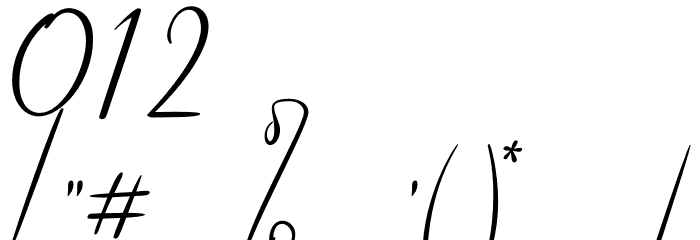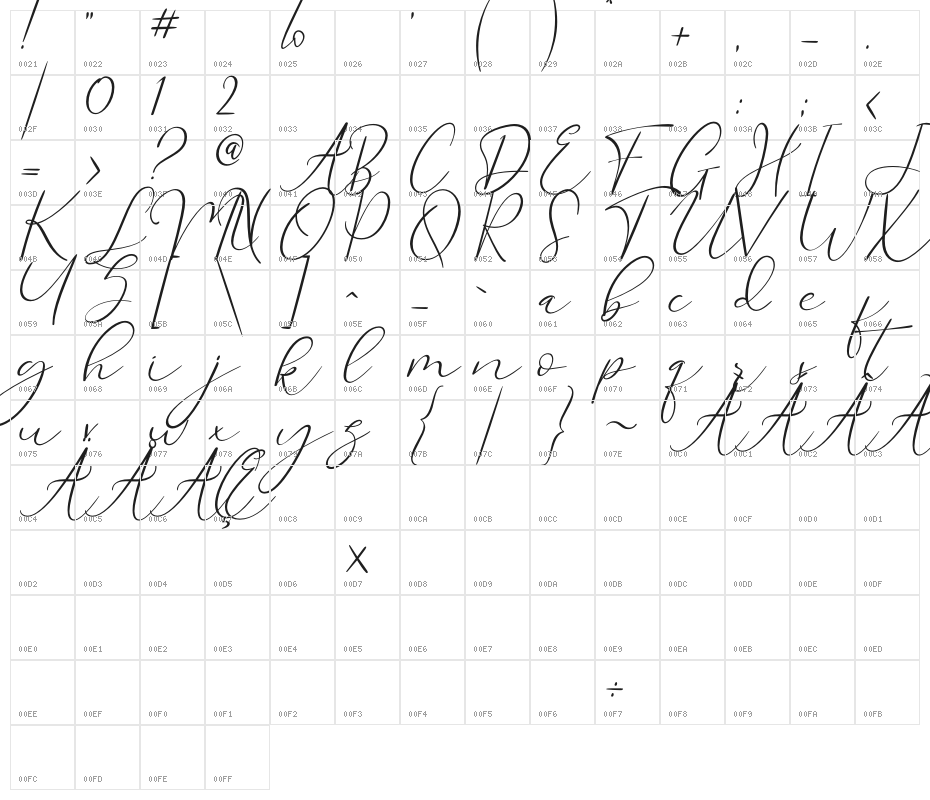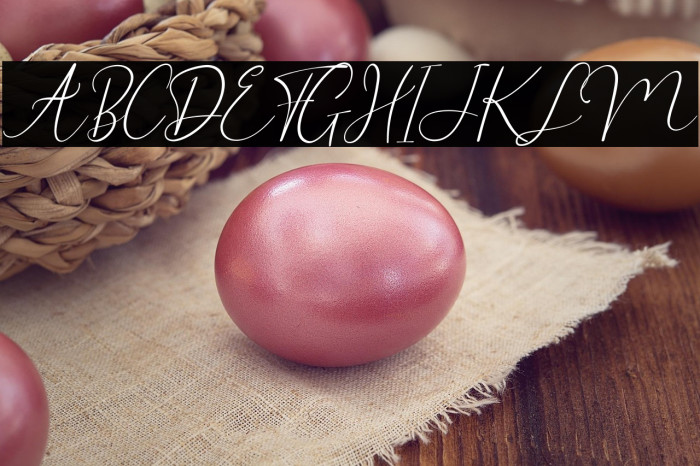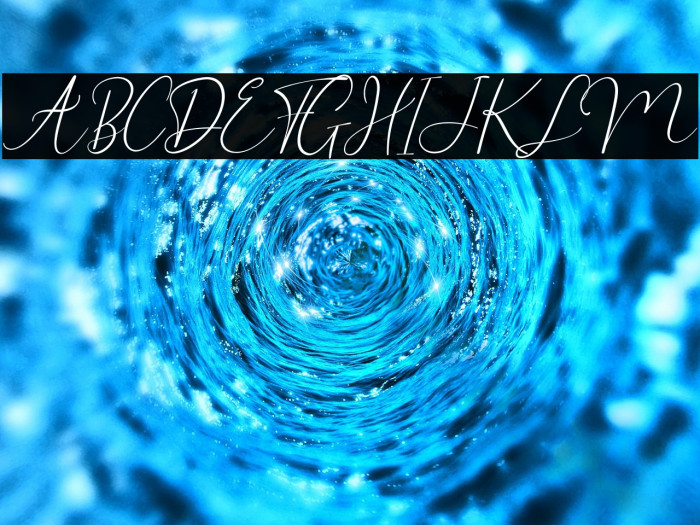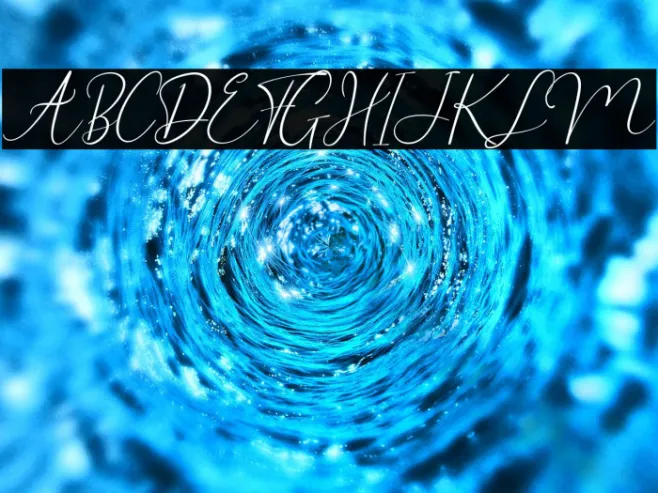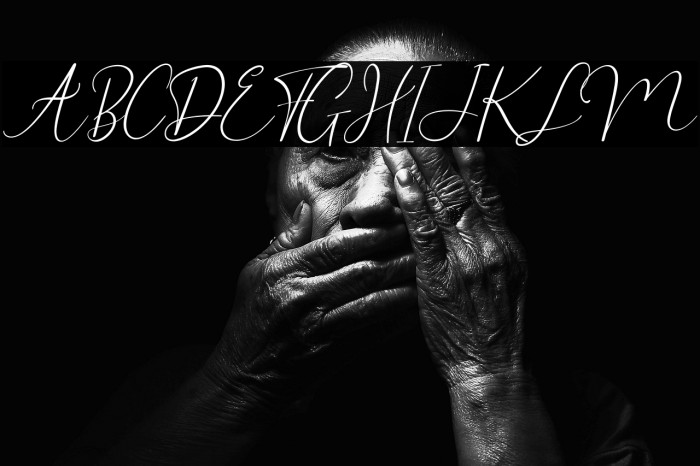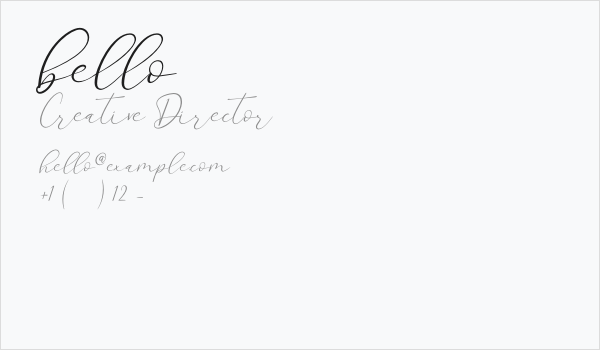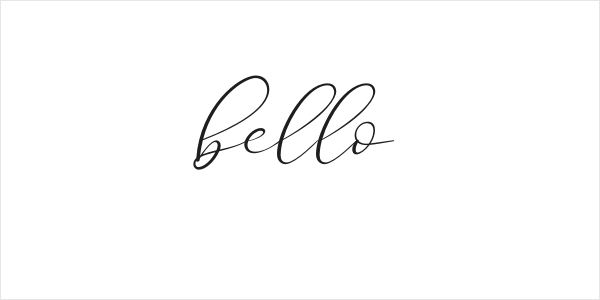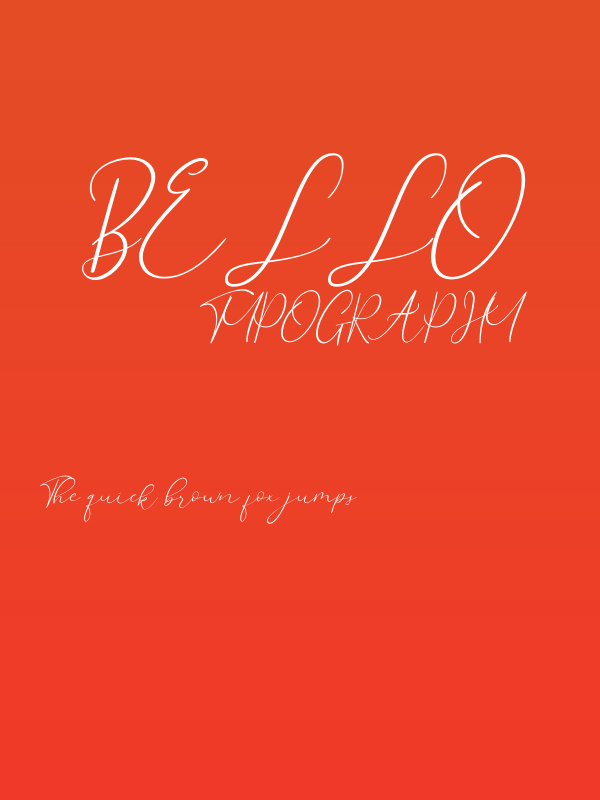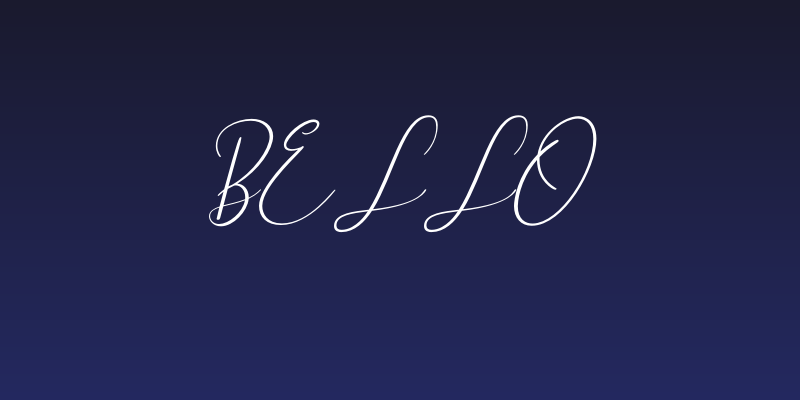
bello Font
bello Description
This elegant script font features fluid, cursive strokes that mimic the natural flow of handwriting. The uppercase letters are characterized by sweeping loops and flourishes, while the lowercase letters maintain a consistent, graceful rhythm. The numerals and special characters are designed with the same attention to detail, ensuring a cohesive look across all text. The font's delicate lines and sophisticated style make it ideal for projects that require a touch of elegance and personal flair.
| Proposed Projects | Ideal for wedding invitations, greeting cards, personal branding, and elegant packaging designs. |